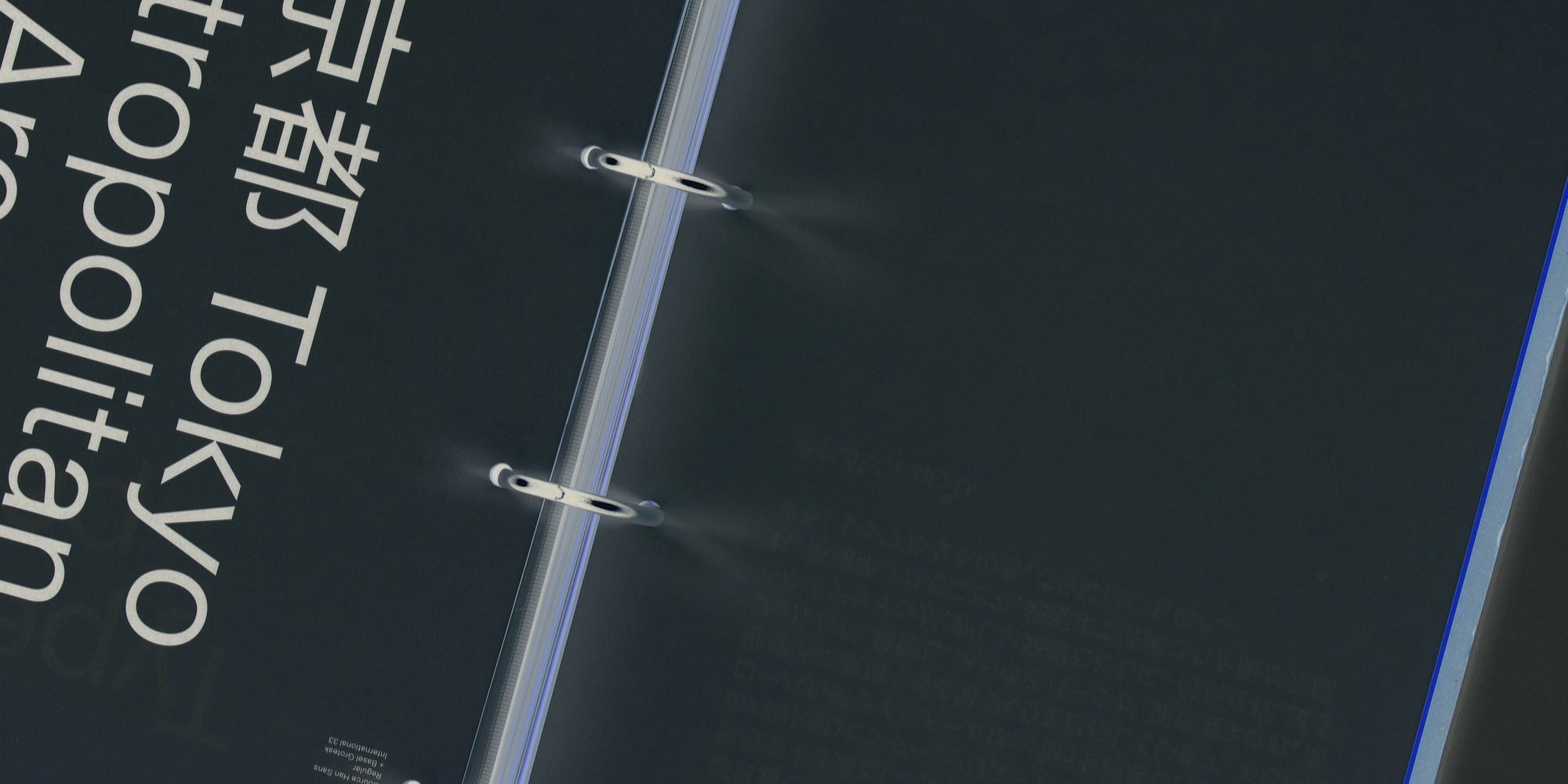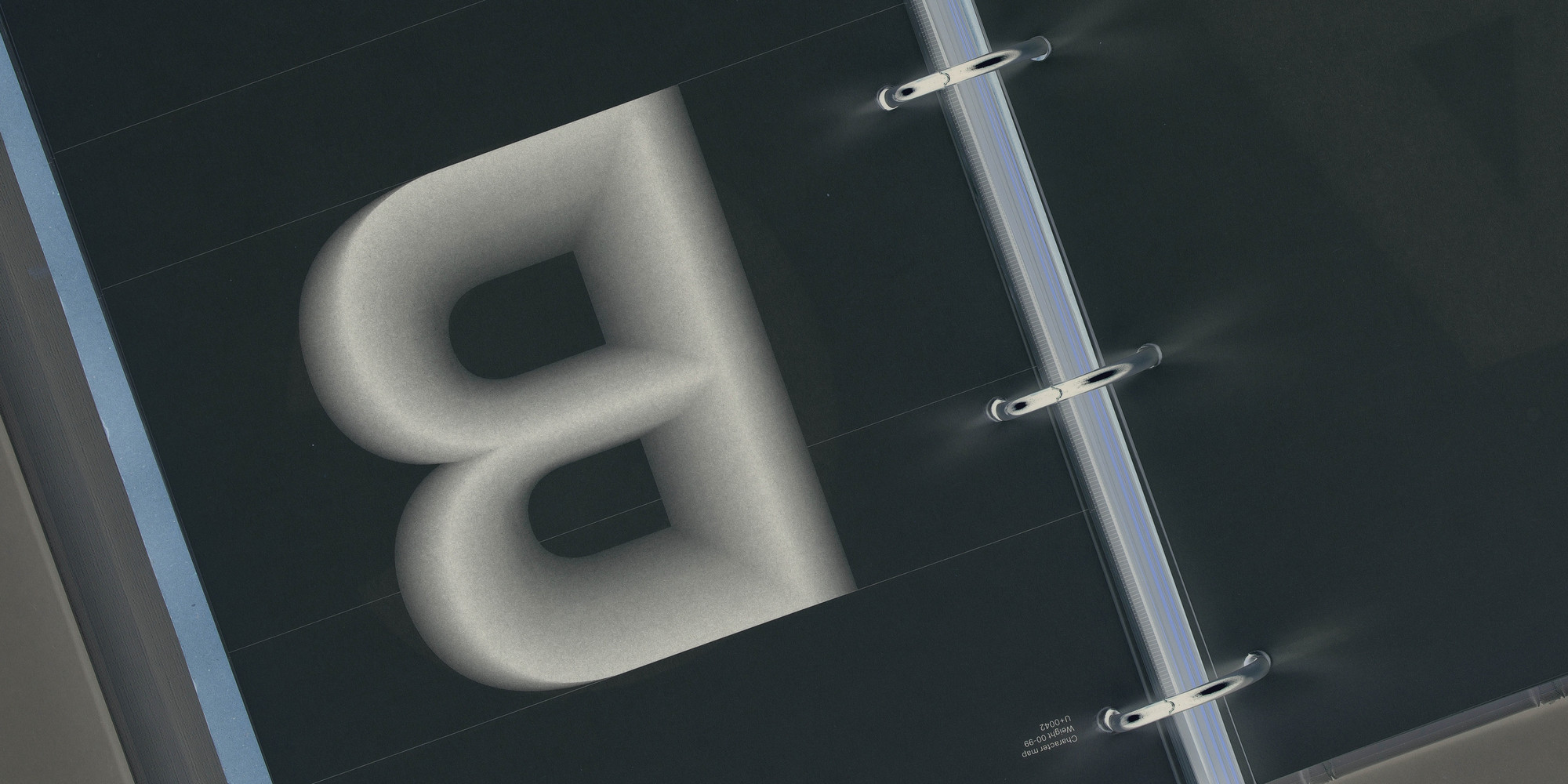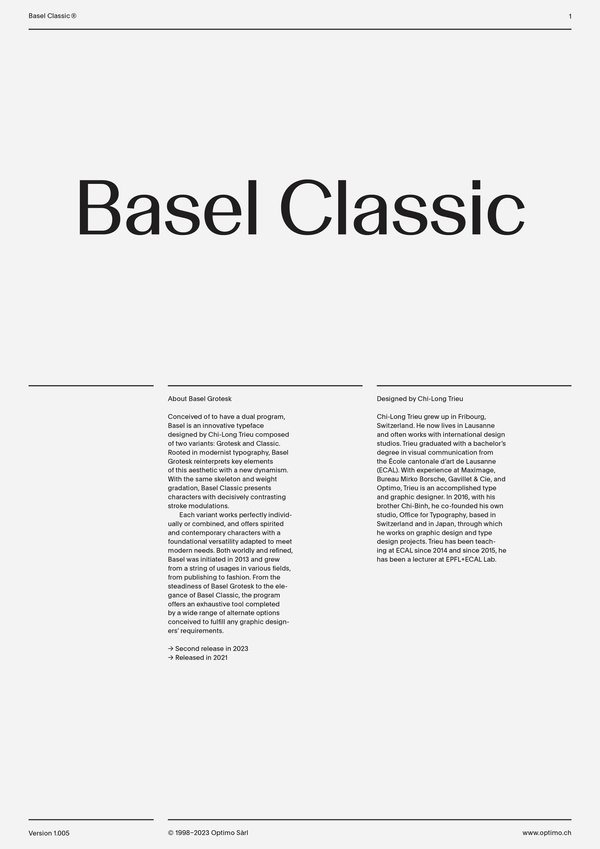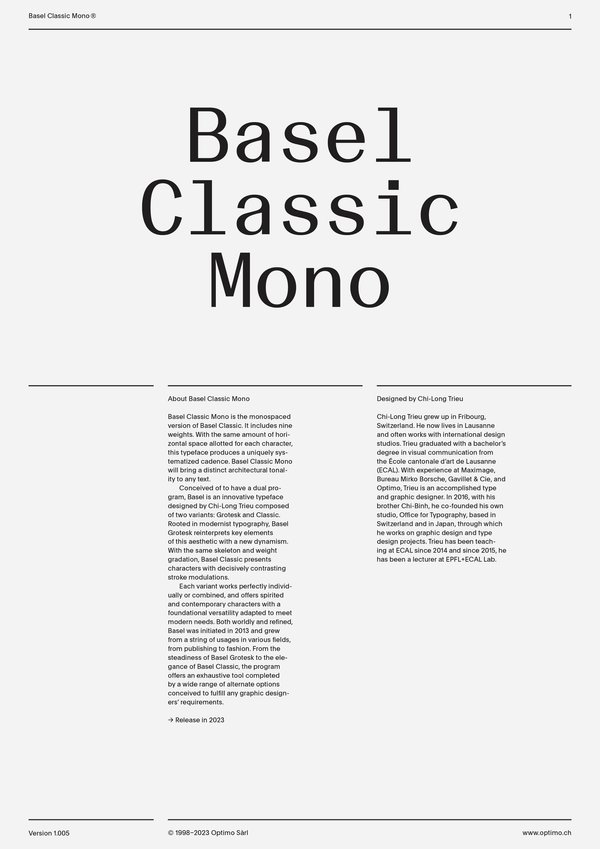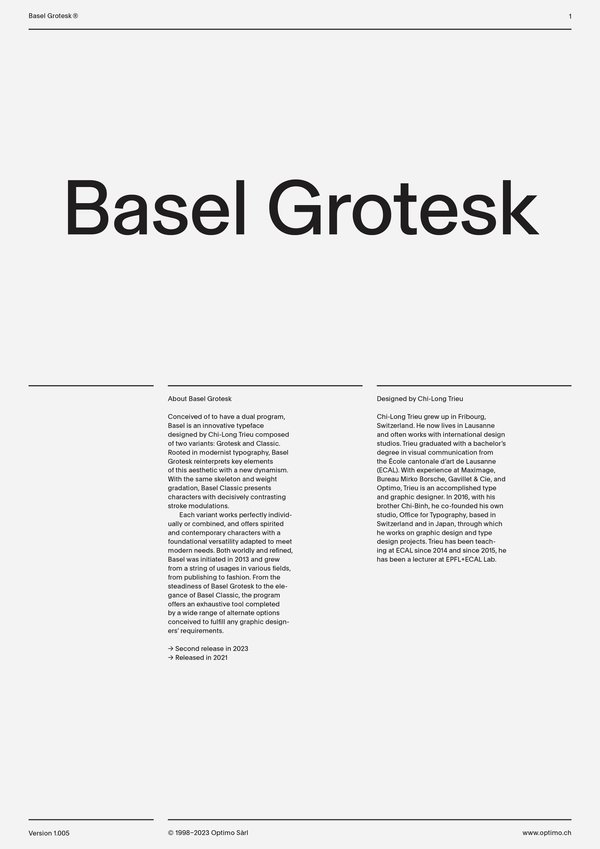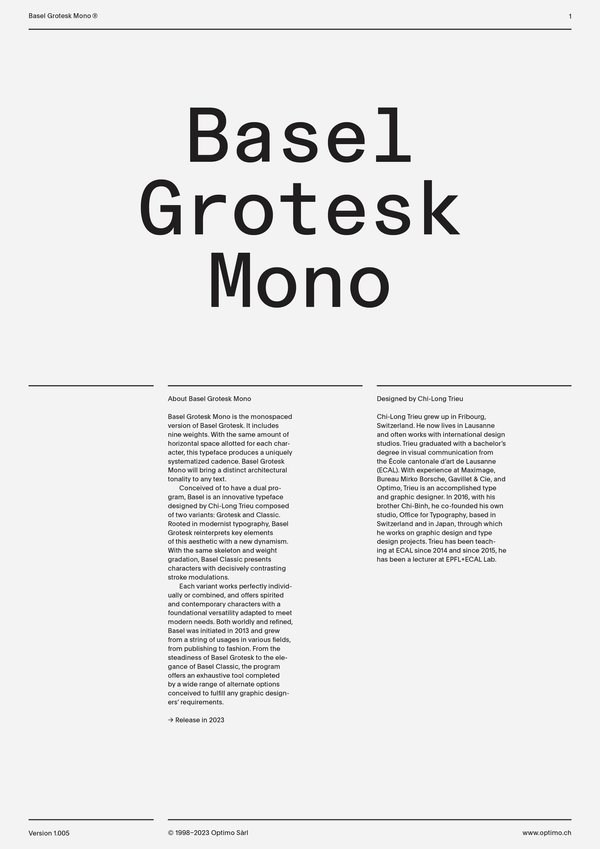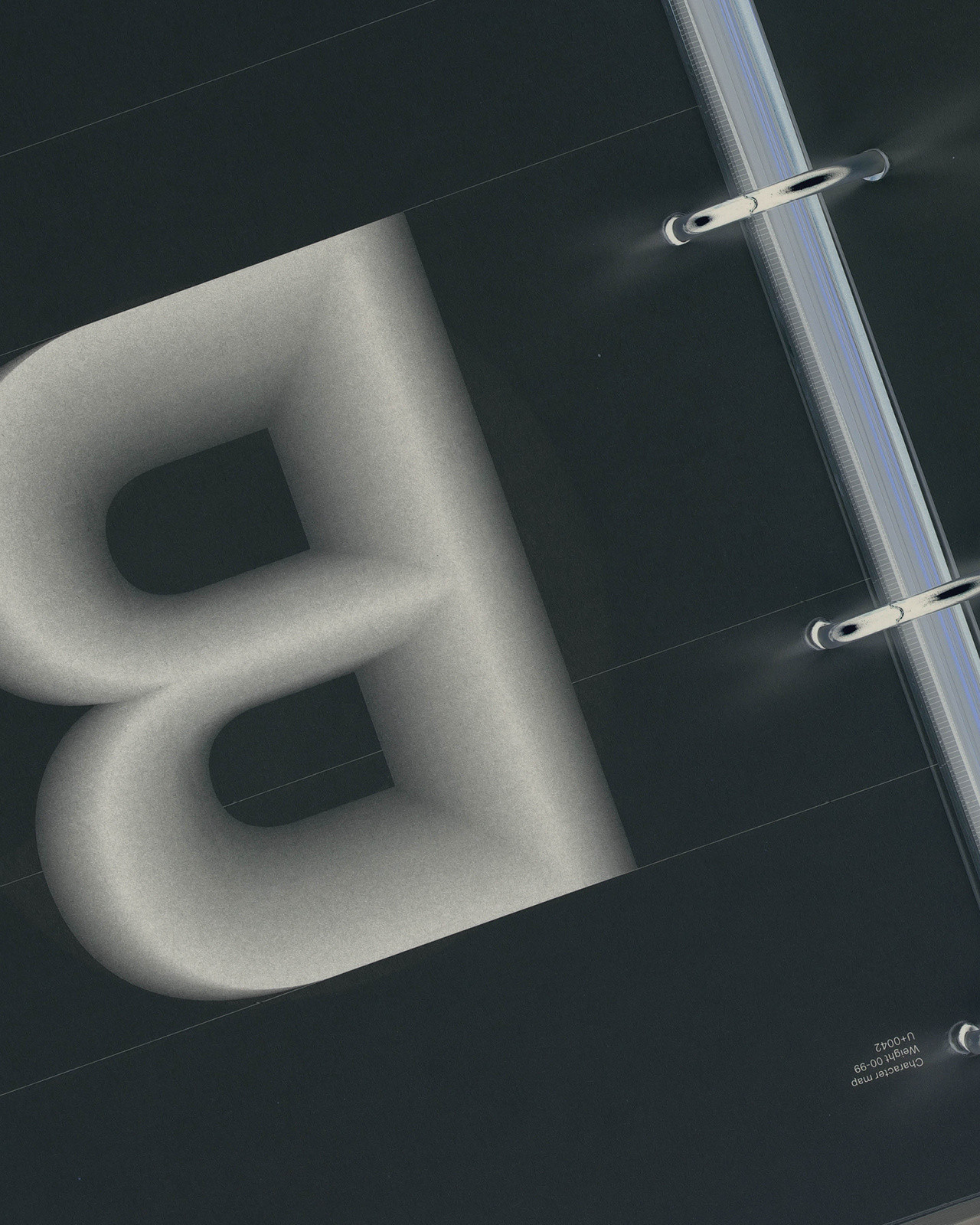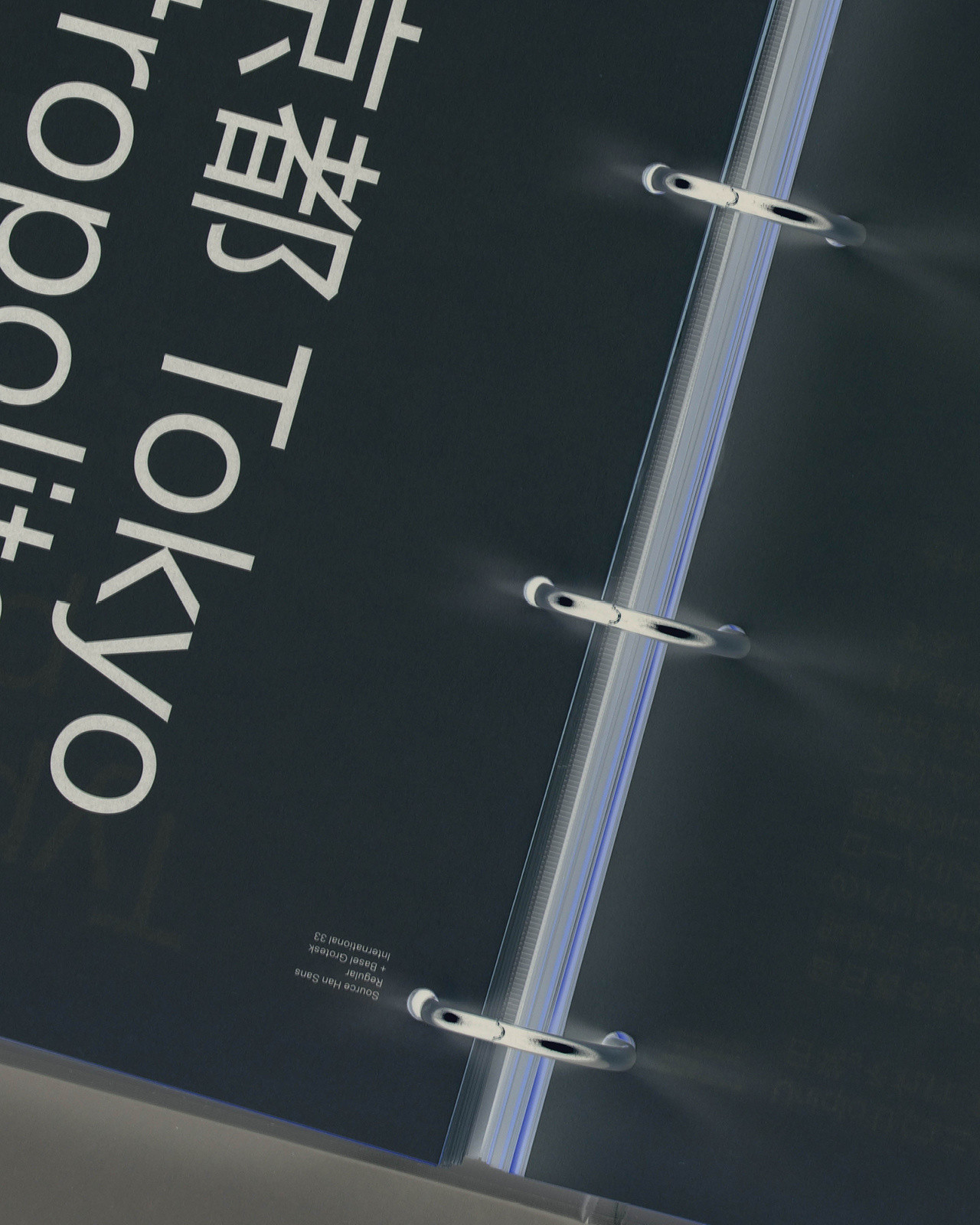
Basel Variable
Basel Grotesk
Basel Classic
Basel Grotesk Mono
Basel Classic Mono
Case Sensitive Forms
All Caps [cpsp]
Case Sensitive Forms [case]
This function formats the text in uppercase and adjusts spacing between all capital letters. It also applies the ‘Case Sensitive Forms’ feature which replaces certain characters with alternates that are better suited for all capital text, especially related to punctuation.
Contextual Alternates
Contextual Alternates [calt]
This feature adapts the position of a glyph after its surrounding context. For instance, a dash placed between two uppercase letters or numbers will be replaced by an uppercase version of the dash, slightly higher. This feature is usually active by default in Adobe applications.
Alternate a
Stylistic Set 1 [ss01]
This feature replaces glyph(s) with stylistic alternate(s).
Alternate g
Stylistic Set 2 [ss02]
This feature replaces glyph(s) with stylistic alternate(s).
Alternate l
Stylistic Set 3 [ss03]
This feature replaces glyph(s) with stylistic alternate(s).
Alternate t
Stylistic Set 4 [ss04]
This feature replaces glyph(s) with stylistic alternate(s).
Alternate u
Stylistic Set 5 [ss05]
This feature replaces glyph(s) with stylistic alternate(s).
Alternate y
Stylistic Set 6 [ss06]
This feature replaces glyph(s) with stylistic alternate(s).
Alternate G
Stylistic Set 7 [ss07]
This feature replaces glyph(s) with stylistic alternate(s).
Alternate G
Stylistic Set 8 [ss08]
This feature replaces glyph(s) with stylistic alternate(s).
Alternate I
Stylistic Set 9 [ss09]
This feature replaces glyph(s) with stylistic alternate(s).
Alternate J
Stylistic Set 10 [ss10]
This feature replaces glyph(s) with stylistic alternate(s).
Alternate R
Stylistic Set 11 [ss11]
This feature replaces glyph(s) with stylistic alternate(s).